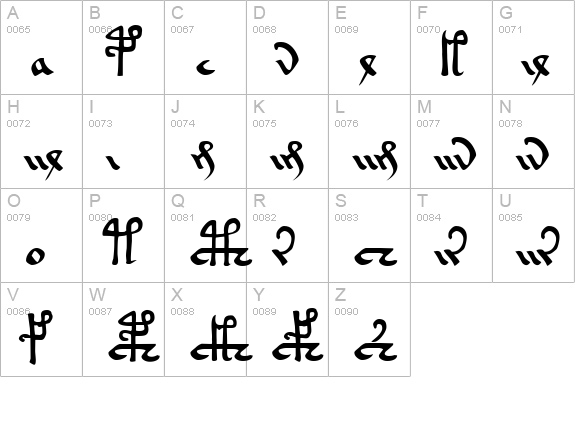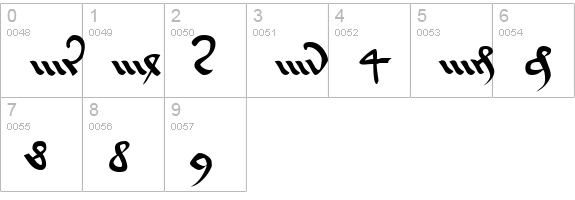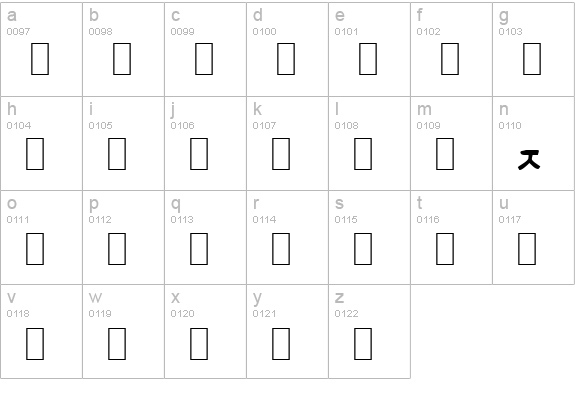
Voynich Currier Hand A Font Details
Voynich Currier Hand A font is a stunning and captivating typeface that combines elegance with a touch of mystery. Inspired by the enigmatic Voynich Manuscript, this font brings to life the intricate and intricate script found within its pages. With its flowing and graceful strokes, Voynich Currier Hand A font captures the essence of a bygone era, transporting you to a world of ancient manuscripts and secret knowledge. Its unique and elaborate letterforms make it perfect for adding a touch of sophistication to any project. This font is freely available to download at FontsMarket.com, where you can easily access and enjoy its beauty and versatility. Whether you are designing a logo, creating a book cover, or crafting a stunning invitation, Voynich Currier Hand A font will effortlessly elevate your design, making it truly stand out. Not only does this font possess an air of elegance, but it also carries a sense of intrigue and mystery. Its intricate details and ornate flourishes give it a sense of hidden secrets waiting to be discovered. Each letter is meticulously crafted, creating a harmonious and visually pleasing composition. Voynich Currier Hand A font is not just a typeface; it is a work of art. Its delicate and precise lines showcase the skill and craftsmanship that went into its creation. Whether used in large headings or subtle accents, this font brings a touch of sophistication and refinement to any design. So, whether you are a designer, a typographer, or simply someone who appreciates the beauty of a well-crafted font, Voynich Currier Hand A font is a must-have addition to your collection. Download it for free at FontsMarket.com and unlock the secrets of this mesmerizing typeface. Let your creativity soar as you explore the endless possibilities that this font offers.